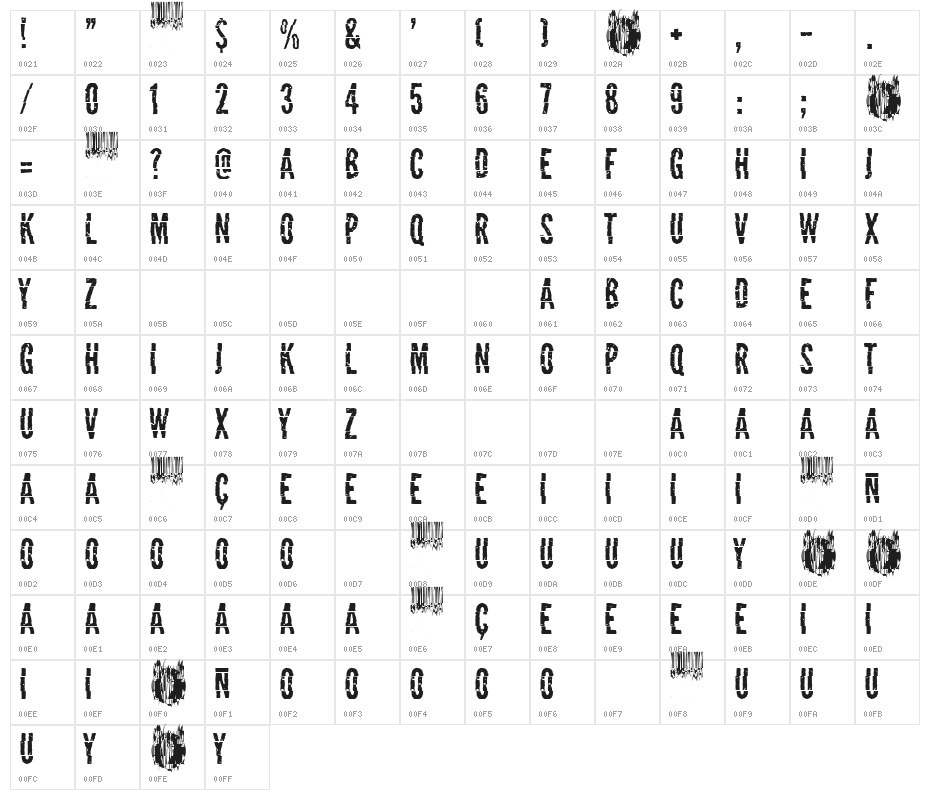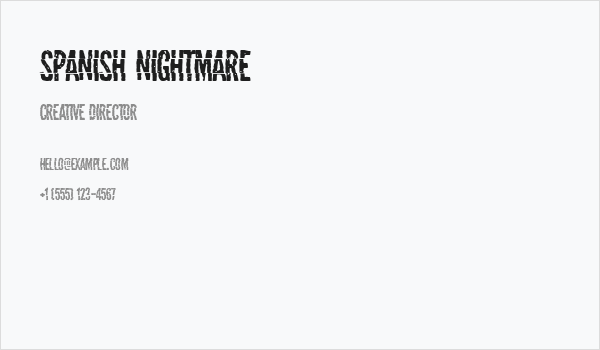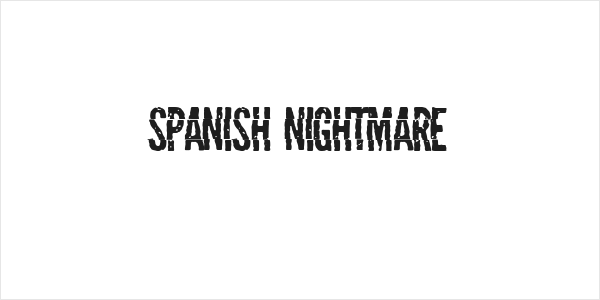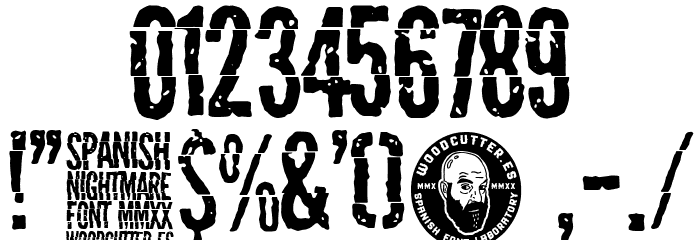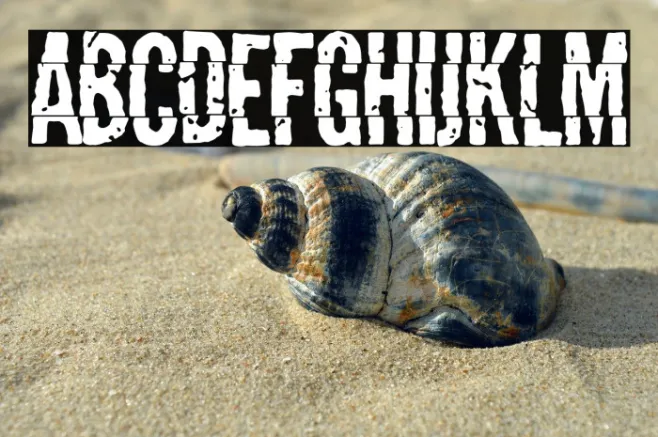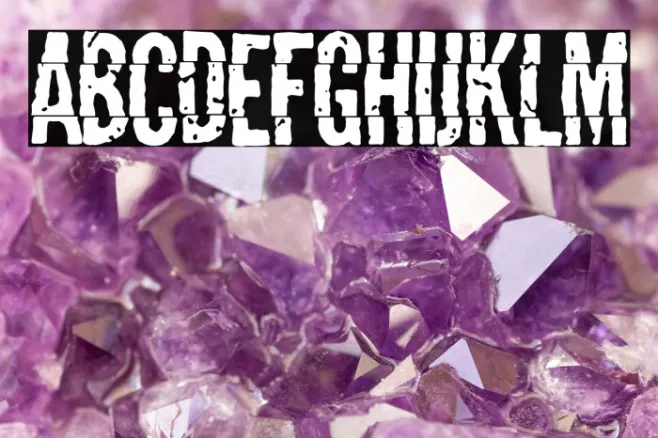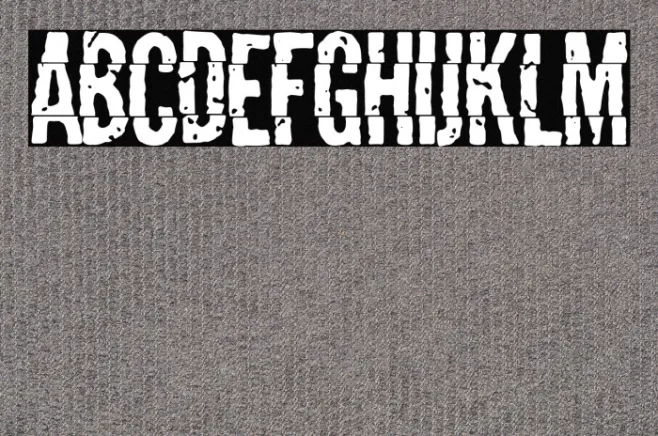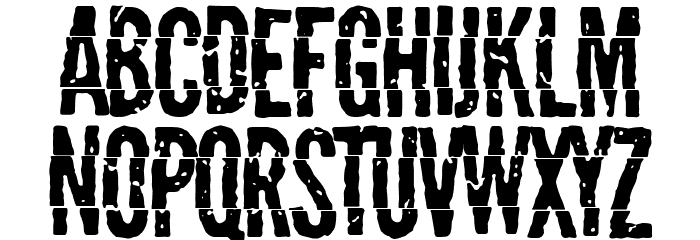
Spanish Nightmare Font
Spanish Nightmare Description
This font features a distressed, grunge style with a bold and impactful presence. The characters are heavily textured, giving them a worn, rugged appearance that suggests a vintage or industrial aesthetic. The uppercase letters are prominent and commanding, while the lowercase letters maintain the same distressed quality. Numbers and special characters follow the same design, ensuring consistency across all elements. The font's unique style makes it ideal for projects that require a bold statement or an edgy, rebellious feel.
| Overall Style | Vintage, Grunge, Industrial |
| Proposed Projects | Ideal for music album covers, posters, branding for edgy or alternative products, and any design requiring a strong, impactful visual statement. |